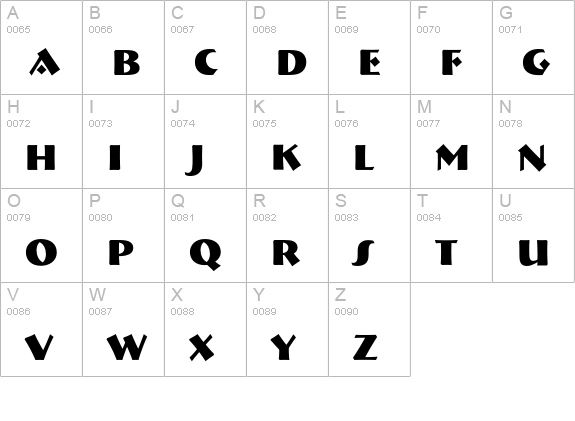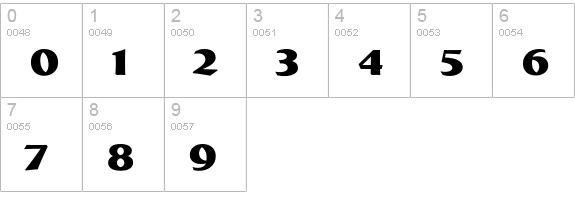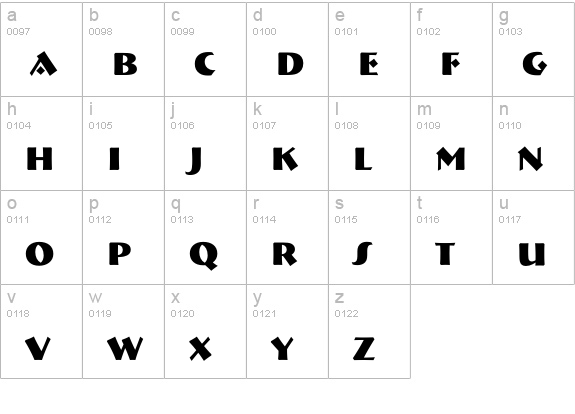
Bremen-Bold Font Details
Bremen-Bold is a strong, high-contrast variant in the Bremen typeface family \xE2\x80\x94 well suited to headlines, attention-grabbing titles, and strong calls-to-action.
Bremen-Bold is a striking and modern font that exudes confidence and strength. With its bold and impactful design, this font is perfect for making a statement in any project. The clean lines and sharp edges of Bremen-Bold give it a contemporary and professional look, making it ideal for headlines, logos, posters, and more. What sets Bremen-Bold apart is that it is not only stylish and versatile but also free for anyone to use. That's right - this high-quality font is freely available to download at FontsMarket.com. Whether you're a designer, a student, or a business owner, Bremen-Bold offers a unique and eye-catching option for your typography needs. Don't miss out on the opportunity to enhance your designs with this exceptional font. Download Bremen-Bold today and take your projects to the next level.